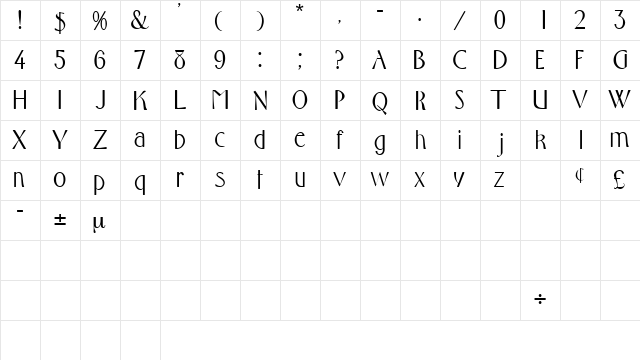
ToqueDisplaySSK Regular
Design Context for ToqueDisplaySSK Typeface
ToqueDisplaySSK is built around its visual character rather than neutral utility — its distinctive forms are designed to make an impression at display sizes.
Font Pairing: Pair with a clean neutral sans-serif for body copy to let ToqueDisplaySSK's character lead without overwhelming the composition.
Pro Tip: Treat ToqueDisplaySSK as the centrepiece of your typographic hierarchy. One strong heading set in a decorative face can carry an entire layout.